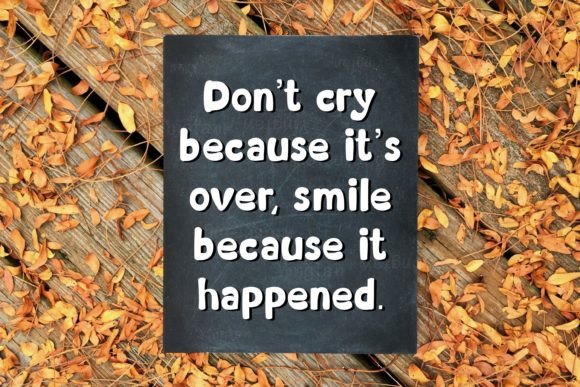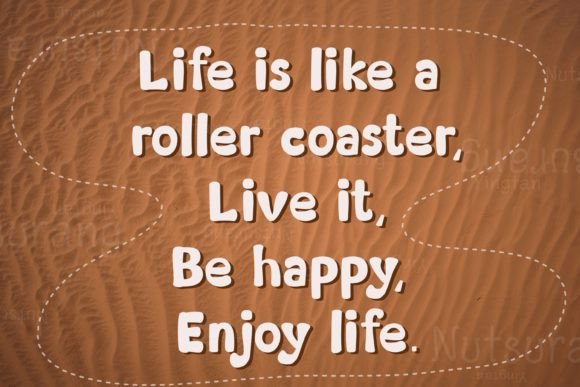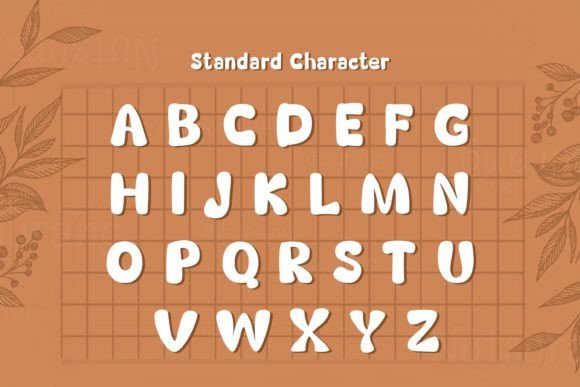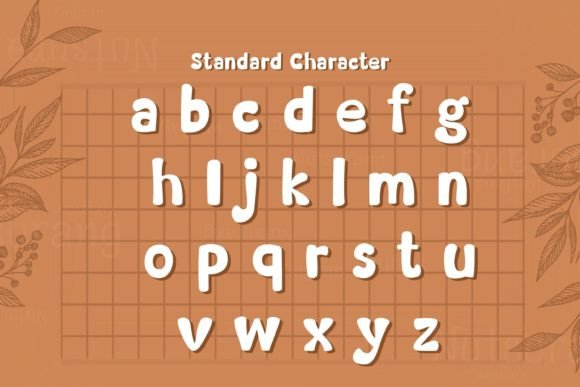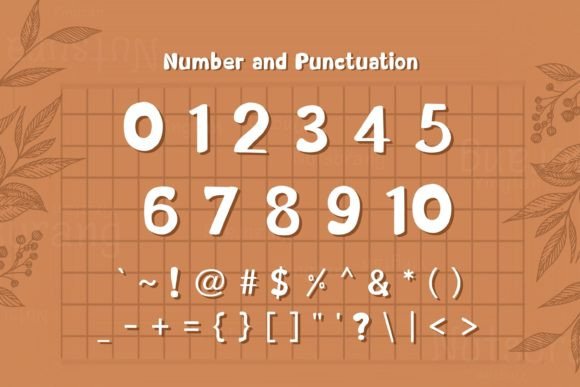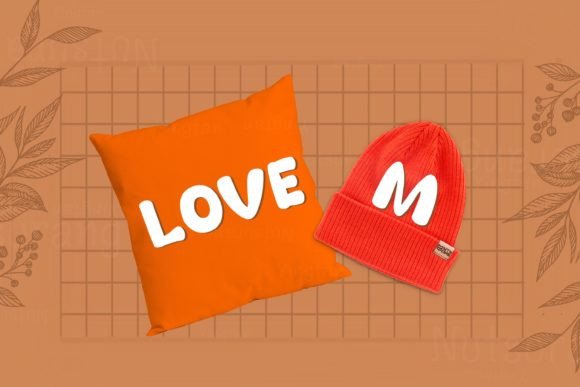
Lecture Note Font
About Lecture Note Font
**Lecture Note** is a font that radiates warmth and friendliness, embracing a cute and playful handwritten style. Its charm lies in its natural and unique design, making it a versatile choice for a wide array of creative projects. With **Lecture Note**, the possibilities are boundless, limited only by your imagination.
The font’s friendly demeanor makes it perfect for a variety of applications. Its playful yet legible characters make it ideal for educational materials, adding a touch of whimsy to lecture notes, presentations, and classroom resources. **Lecture Note** brings a sense of approachability, making learning engaging and enjoyable.
Beyond the classroom, **Lecture Note** finds its place in various design contexts. Its handwritten charm makes it suitable for greeting cards, invitations, posters, and social media graphics. It adds a personal touch to your messages, creating connections with the audience. The font’s friendly vibe enhances the overall appeal of your designs, eliciting smiles and positive reactions.
When applied to digital media, **Lecture Note** becomes a delightful choice for websites, blogs, and online content. Its playful nature captures attention, making the reading experience enjoyable for visitors. Whether used in headlines, captions, or body text, the font maintains its readability while infusing a sense of fun into the digital space.
What sets **Lecture Note** apart is its ability to bring character and personality to any project. Its handwritten quality lends authenticity, creating a genuine connection with the audience. The font’s natural flow and unique strokes make it a standout choice for branding, logos, and packaging, adding a touch of whimsical elegance to products and marketing materials.
With **Lecture Note**, you have the freedom to explore and create. Let your creativity soar as you incorporate this font into your designs. Whether you’re crafting educational materials, designing greeting cards, or building a brand identity, **Lecture Note** enhances your projects with its cheerful and friendly presence.
Embrace the charm of **Lecture Note** and let it infuse your designs with its playful spirit. Watch as your creations come to life, captivating hearts and spreading joy. Unleash your imagination and let **Lecture Note** be the creative companion that transforms your ideas into delightful realities.